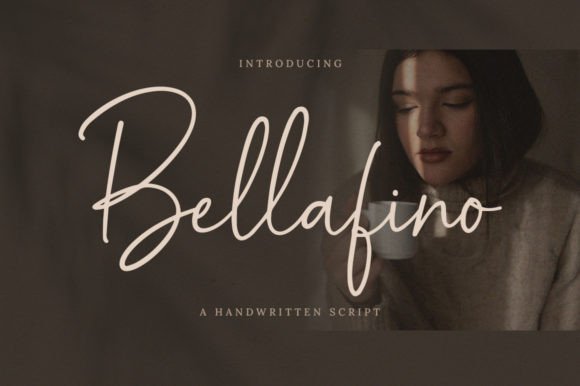
Introduce the Majestic Bellafino: Where Elegance Flows Like Ink
In a world saturated with digital monotony, it's time to unleash your creativity with Bellafino, a font that's more than just a collection of letters—it's an expressive odyssey, a symphony of curves and strokes that will captivate your audience and leave them spellbound.
Bellafino isn't just a font; it's an experience—an invitation to immerse yourself in the beauty of handwritten elegance. Its graceful lines dance across the page like a ballerina, evoking a sense of timeless sophistication. Whether you're crafting a heartfelt letter, designing a stunning invitation, or creating eye-catching social media posts, Bellafino will elevate your words and make them shine.
Imagine your designs adorned with Bellafino's enchanting characters, each stroke whispering a tale of artistry and passion. Its versatility knows no bounds, seamlessly adapting to a myriad of creative endeavors:
- **Branding:** Infuse your brand with a touch of sophistication and charm that speaks volumes about your dedication to excellence.
- **Labels:** Transform ordinary products into exquisite masterpieces, capturing the attention of customers with labels that exude elegance and allure.
- **Photography:** Elevate your photographs to breathtaking works of art, adding a layer of visual intrigue that draws viewers into your creative world.
- **Invitations:** Create invitations that are more than just pieces of paper—they're cherished mementos that hint at the magical experience to come.
- **Stationery:** Turn everyday correspondence into a delightful affair, where each letter carries a touch of personal flair and leaves a lasting impression.
- **Wedding Designs:** Make your wedding day truly unforgettable with Bellafino-infused designs that reflect the love and joy you share.
- **Social Media Posts:** Engage your audience with captivating social media posts that dance off the screen and leave a lasting impression.
- **Advertisements:** Craft advertisements that resonate with your target audience, capturing their attention and leaving them eager to learn more.
- **Product Packaging:** Transform ordinary packaging into works of art that entice customers and leave them eager to discover what lies within.
- **Product Designs:** Elevate your product designs with Bellafino's intricate details, adding a touch of sophistication that sets your products apart from the competition.